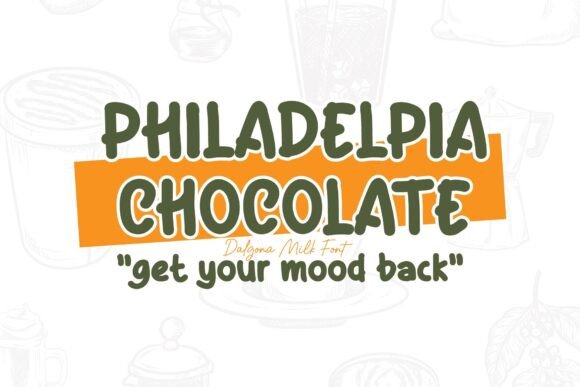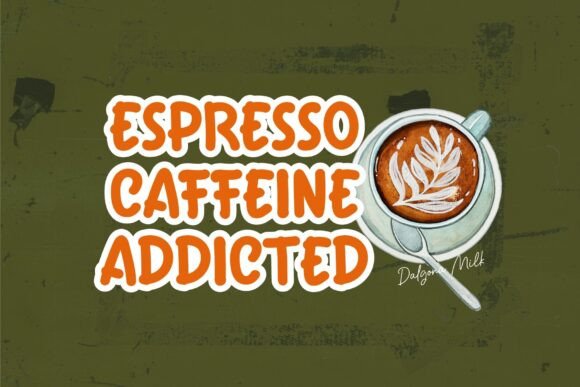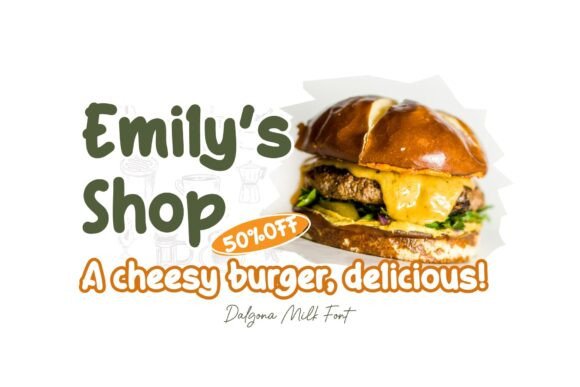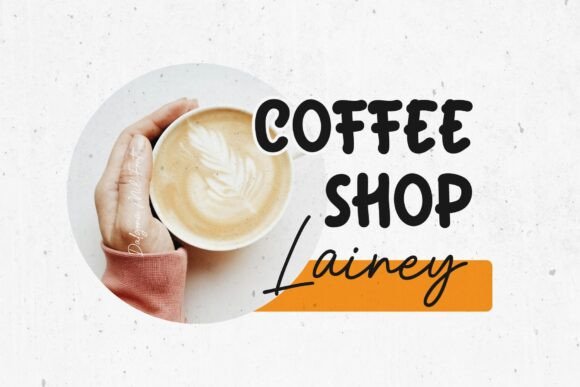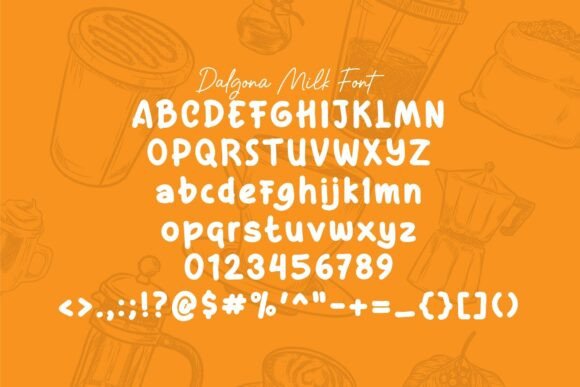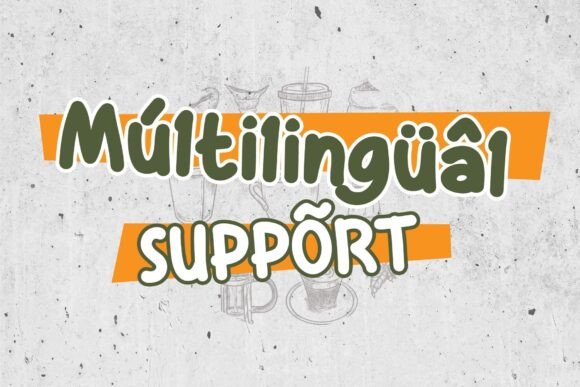
Dalgona Milk Font: The Sweetest Addition to Your Design Toolbox
Are you on the hunt for a font that adds a dash of fun and a whole lot of charm to your designs? Look no further than Dalgona Milk Font! This bold, cute, and playful font is the perfect addition to any design project, bringing a fresh and clean look that’s sure to captivate your audience. In this article, we’ll dive into the world of Dalgona Milk Font, exploring its features, uses, and benefits for designers and crafters alike.
The Charm of Dalgona Milk Font
Dalgona Milk Font is a true showstopper, with its smooth curves and cheerful vibe making it an instant favorite among designers. This font’s unique personality shines through in its bold and playful appearance, perfect for creating eye-catching designs that demand attention. Whether you’re working on a branding project, a quirky design, or simply looking to add some personality to your text, Dalgona Milk Font is the perfect choice.
Features of Dalgona Milk Font
- Bold and Playful: Dalgona Milk Font boasts a bold and playful appearance that’s sure to make your designs stand out.
- Smooth Curves: The font’s smooth curves give it a soft and approachable feel, perfect for designs that require a touch of warmth.
- Cute and Cheerful: Dalgona Milk Font exudes a cheerful vibe that’s perfect for designs that require a dash of fun and personality.
- Clean and Legible: Despite its playful appearance, Dalgona Milk Font remains clean and legible, making it perfect for use in a variety of design applications.
Uses for Dalgona Milk Font
Dalgona Milk Font is incredibly versatile, making it perfect for a wide range of design applications. Here are just a few ideas to get you started:
- Creative Logos: Dalgona Milk Font is perfect for creating unique and eye-catching logos that showcase your brand’s personality.
- Eye-Catching Posters: Add a dash of fun and personality to your posters with Dalgona Milk Font, guaranteed to grab attention and leave a lasting impression.
- Product Packaging: Give your product packaging a sweet and stylish touch with Dalgona Milk Font, perfect for brands that want to stand out on store shelves.
- Branding Projects: Whether you’re rebranding or launching a new brand, Dalgona Milk Font is the perfect choice for adding a touch of personality to your designs.
So, what makes Dalgona Milk Font such a great choice for designers and crafters? Here are just a few benefits to consider:
- Easy to Read: Despite its playful appearance, Dalgona Milk Font remains easy to read, making it perfect for use in a variety of design applications.
- Versatile: Dalgona Milk Font is incredibly versatile, making it perfect for use in a wide range of design projects.
- Time-Saving: With Dalgona Milk Font, you can create stunning designs in no time, thanks to its clean and legible appearance.
- Unique: Dalgona Milk Font is a true standout, offering a unique personality that’s sure to make your designs shine.
| Font Name | Dalgona Milk Font |
| Author | salamahtype |
In conclusion, Dalgona Milk Font is a bold, cute, and playful font that’s perfect for designers and crafters looking to add a dash of fun and personality to their designs. With its smooth curves, cheerful vibe, and clean appearance, Dalgona Milk Font is the perfect choice for creative logos, eye-catching posters, product packaging, and more. So why wait? Give Dalgona Milk Font a try today and experience the sweet and stylish touch it brings to your designs!
Get Creative with Dalgona Milk Font
Ready to get creative with Dalgona Milk Font? Here are a few tips to help you get started:
- Experiment with Colors: Dalgona Milk Font looks great in a variety of colors, so don’t be afraid to experiment and find the perfect hue for your design.
- Play with Pairings: Try pairing Dalgona Milk Font with other fonts to create a unique and eye-catching combination.
- Add Graphics: Dalgona Milk Font looks great with graphics and illustrations, so consider adding some visual interest to your design.